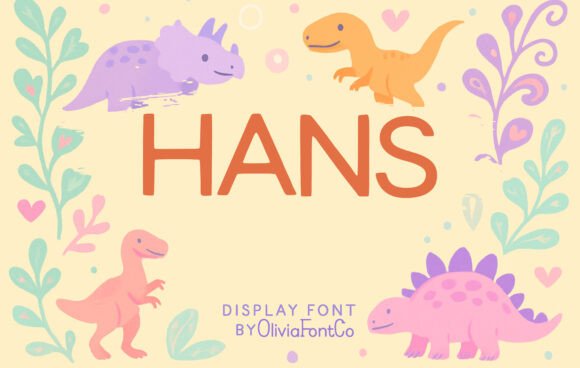
Hans Font: Elevate Your Creative Projects with Style and Legibility
In the world of typography, a well-designed font can make all the difference in bringing your creative ideas to life. Introducing Hans Font, expertly crafted to be a true favorite among designers and artists. With its perfect blend of style, legibility, and versatility, Hans Font has the potential to take your projects to the highest level.
Key Features of Hans Font
- Legibility: Hans Font is designed to be easily readable, making it perfect for both title and body text.
- Versatility: This font is suitable for a wide range of design projects, from magazine headlines to t-shirts, social media graphics, branding, wedding invitations, and more.
- Style: Hans Font boasts a unique and captivating style that is sure to grab attention and leave a lasting impression.
Endless Design Possibilities with Hans Font
Hans Font’s versatility knows no bounds, making it an excellent choice for various design applications. Here are some ideas to get you started:
- Magazine Headlines: Create eye-catching headlines that draw readers in with Hans Font’s bold and stylish design.
- T-Shirts and Apparel: Add a touch of personality to your t-shirts, hoodies, and other apparel with Hans Font’s unique and legible design.
- Social Media Graphics: Elevate your social media presence with engaging graphics that showcase Hans Font’s style and versatility.
- Branding and Identity: Establish a strong brand identity with Hans Font’s distinctive design, perfect for logos, business cards, and more.
- Wedding Invitations and Cards: Add a touch of elegance and sophistication to your wedding invitations, cards, and other stationery with Hans Font’s beautiful design.
Typography Tips for Working with Hans Font
To get the most out of Hans Font, here are some typography tips to keep in mind:
- Experiment with Font Sizes: Hans Font’s legibility makes it suitable for a wide range of font sizes, from large headlines to smaller body text.
- Play with Line Spacing: Adjust the line spacing to create a sense of rhythm and flow in your text, making it easier to read and more visually appealing.
- Mix and Match Font Styles: Combine Hans Font with other fonts to create visual interest and add depth to your design.
Finding Inspiration with Hans Font
In conclusion, Hans Font is an exceptional choice for designers and artists looking to elevate their creative projects. With its perfect blend of style, legibility, and versatility, Hans Font has the potential to take your designs to new heights. Whether you’re working on a magazine headline, t-shirt, social media graphic, or wedding invitation, Hans Font is sure to impress.